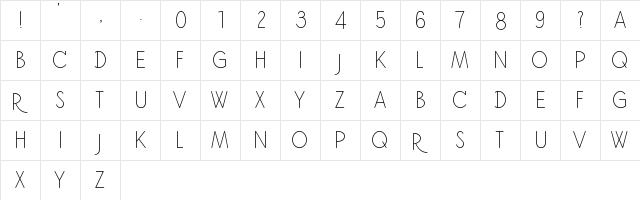
Jonah Regular
| Designer | Tzu-yuan Yin |
Design Context for Jonah Typeface
Jonah is a composed and adaptable typeface that performs quietly and consistently across a wide range of design contexts.